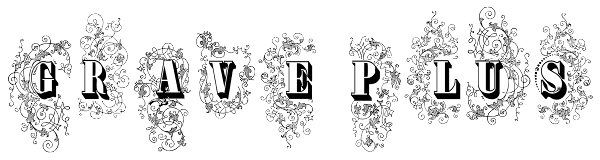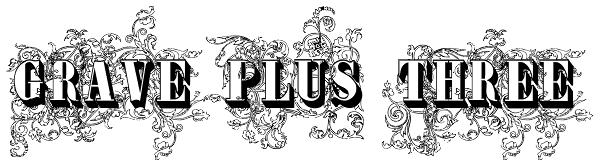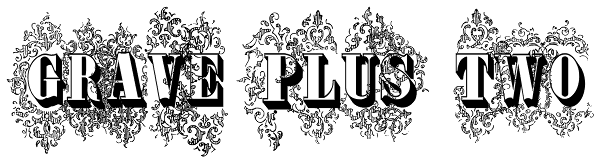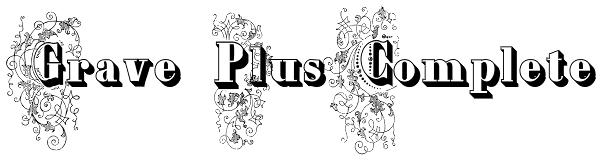
Grave Plus
Grave is a Intellecta's best seller, a classic font design remastered, distressed and antique, merging the bodonian style with tendrils and victorian ornaments. Ideal to use in in display purposes for a stylized type design. Its family of fonts has...